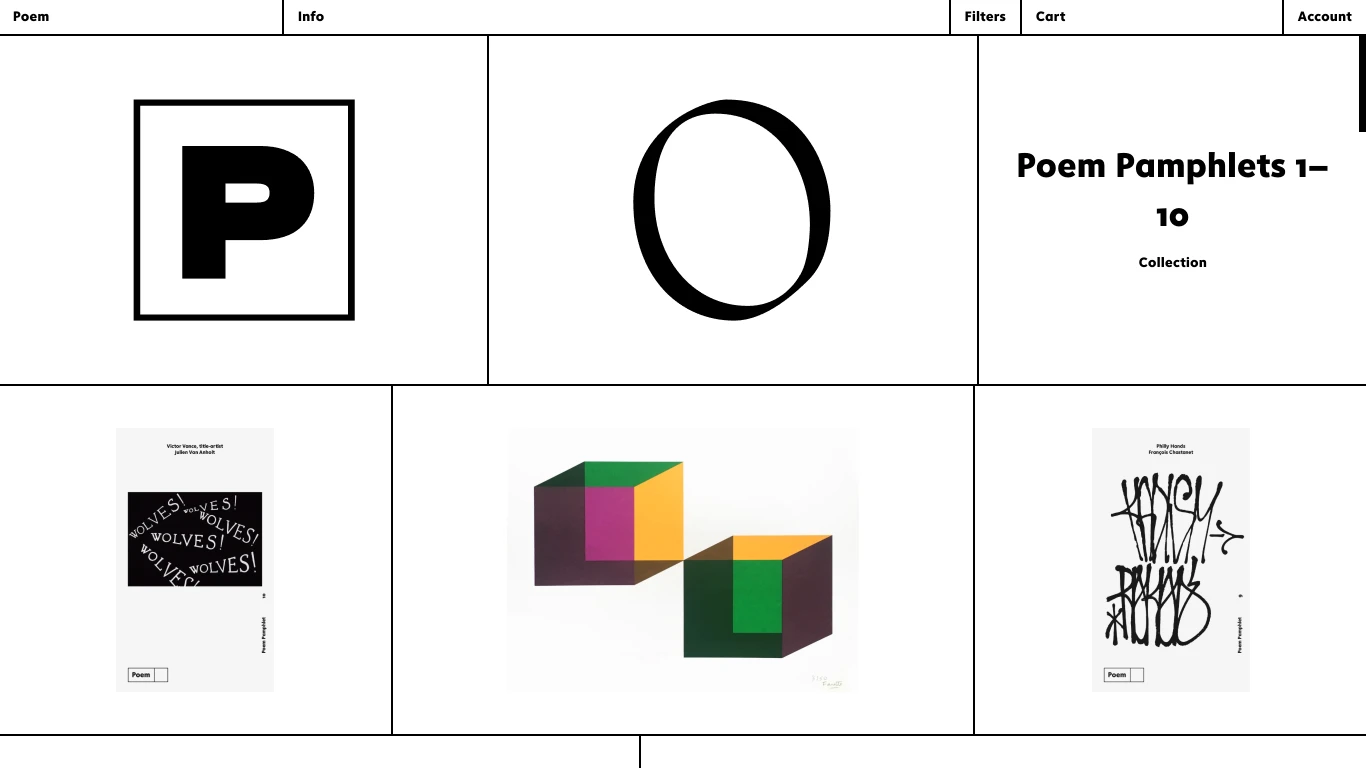
Poem Editions is an independent publishing and type initiative based in Frankfurt am Main, founded by French type designer Jérôme Knebusch under the banner Atelier Jérôme Knebusch. Emerging in the early 2010s from Knebusch’s background in graphic and typographic education, the foundry gained momentum by releasing its Instant sans family in 2012 and later the hybrid historical series Almost Roman and Almost Gothic (2012–2019). Its fonts draw inspiration from the transitional period of 1459–1482—where early roman forms emerged from Gothic origins—earning recognition such as the Type Directors Club’s Certificate of Typographic Excellence in 2020 for Almost. Rather than serving traditional brand clients, Poem Editions focuses on publishing type specimens, pamphlets, and deep typographic research—like its “Poem Collections” bundles and scholarly work on proto-roman models. What uniquely distinguishes Poem Editions is its dedication to typographic historiography: it revives and explores early letterforms through rigorous research and beautifully crafted publications that bridge academic study and contemporary design.